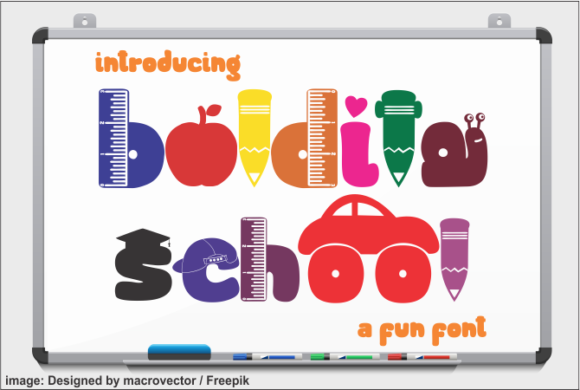
Introducing Boldita School Font: The Perfect Choice for Fun and Creative Projects
Are you looking for a font that embodies playfulness and authenticity for your children’s activity or school project? Look no further than Boldita School Font! This fun and jolly decorative font is specifically designed to bring a sense of excitement and energy to any project, making it the perfect choice for kids and educators alike.
What is Boldita School Font?
Boldita School Font is a unique and creative typeface that is sure to capture the attention of young learners. Its playful and decorative design makes it an ideal choice for a variety of applications, including children’s books, educational materials, posters, and more. The font’s bold and cheerful appearance is sure to add a touch of personality to any project, making it stand out from the crowd.
Key Features of Boldita School Font
So, what makes Boldita School Font so special? Here are just a few of its key features:
- Playful Design: Boldita School Font features a playful and decorative design that is sure to delight kids and educators alike. Its bold and cheerful appearance makes it perfect for use in a variety of applications, from children’s books to educational posters.
- Authentic Feel: This font has an authentic feel that is sure to add a touch of personality to any project. Its unique design makes it stand out from more traditional fonts, giving your project a fresh and creative look.
- Easy to Read: Despite its playful design, Boldita School Font is easy to read, making it perfect for use in educational materials and children’s books.
- Versatile: This font is versatile and can be used in a variety of applications, from digital projects to print materials.
Uses for Boldita School Font
So, what can you use Boldita School Font for? The possibilities are endless! Here are just a few ideas to get you started:
- Children’s Books: Boldita School Font is perfect for use in children’s books, adding a touch of personality and whimsy to your story.
- Educational Materials: This font is ideal for use in educational materials, such as worksheets, activity sheets, and posters.
- School Projects: Boldita School Font is a great choice for school projects, adding a touch of creativity and personality to your work.
- Digital Projects: This font can be used in a variety of digital projects, from videos to presentations.
Why Choose Boldita School Font?
So, why choose Boldita School Font for your project? Here are just a few reasons:
- Unique Design: Boldita School Font features a unique and playful design that is sure to capture the attention of young learners.
- Versatile: Boldita School Font is versatile and can be used in a variety of applications, from digital projects to print materials.
- Fun and Engaging: This font is fun and engaging, making it perfect for use in children’s books, educational materials, and school projects.
In conclusion, Boldita School Font is a fun and jolly decorative font that is perfect for any children’s activity or school project. Its playful and authentic design makes it an ideal choice for kids and educators alike. With its easy-to-use design and versatile applications, Boldita School Font is sure to become a favorite among teachers, parents, and kids.
- What is Boldita School Font? Boldita School Font is a fun and jolly decorative font that is perfect for any children’s activity or school project.